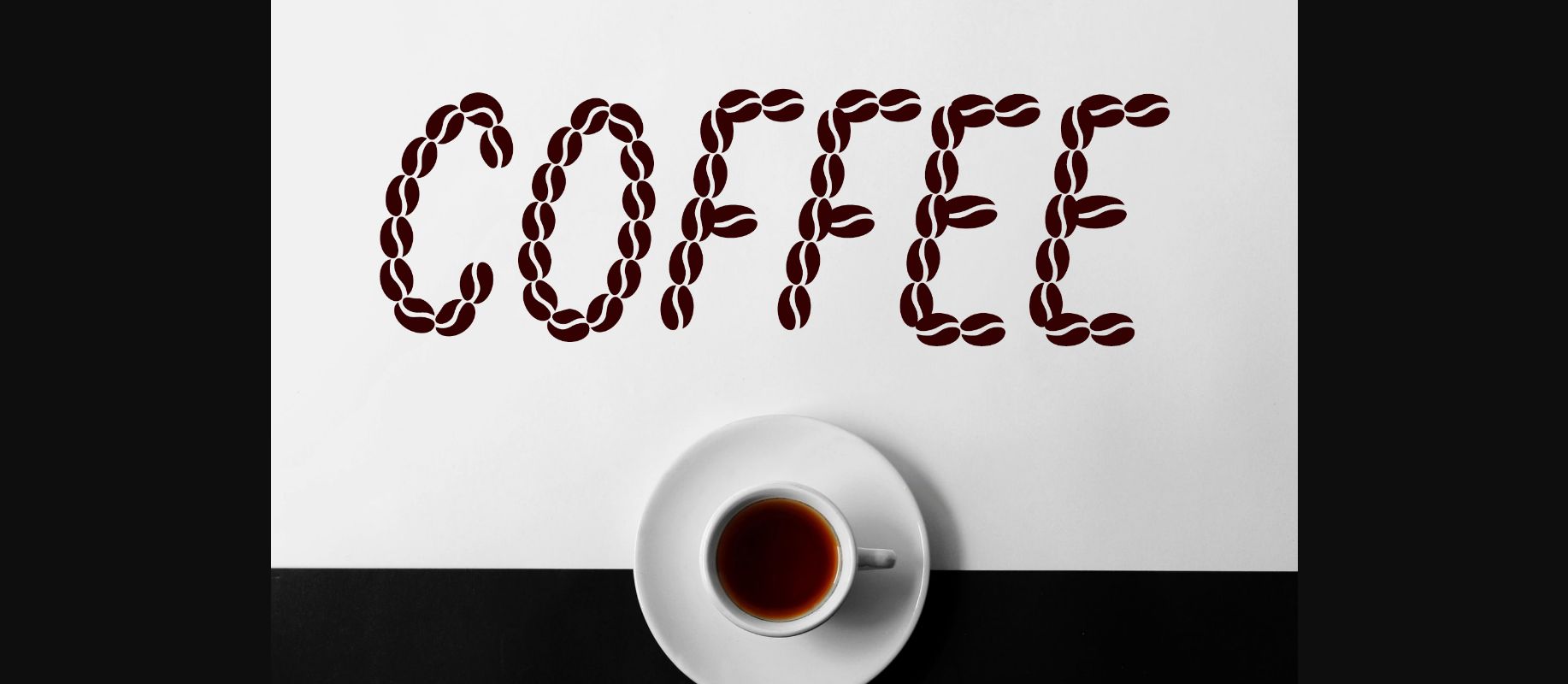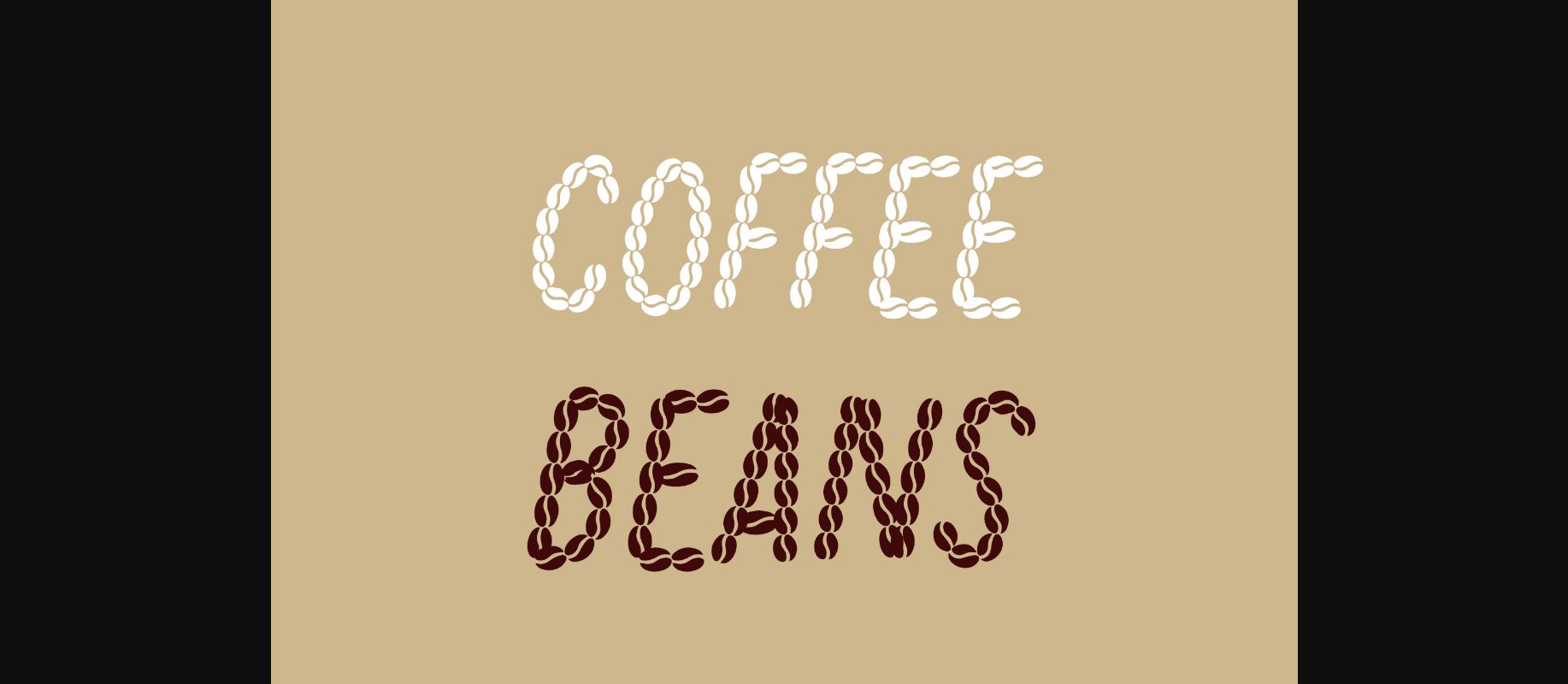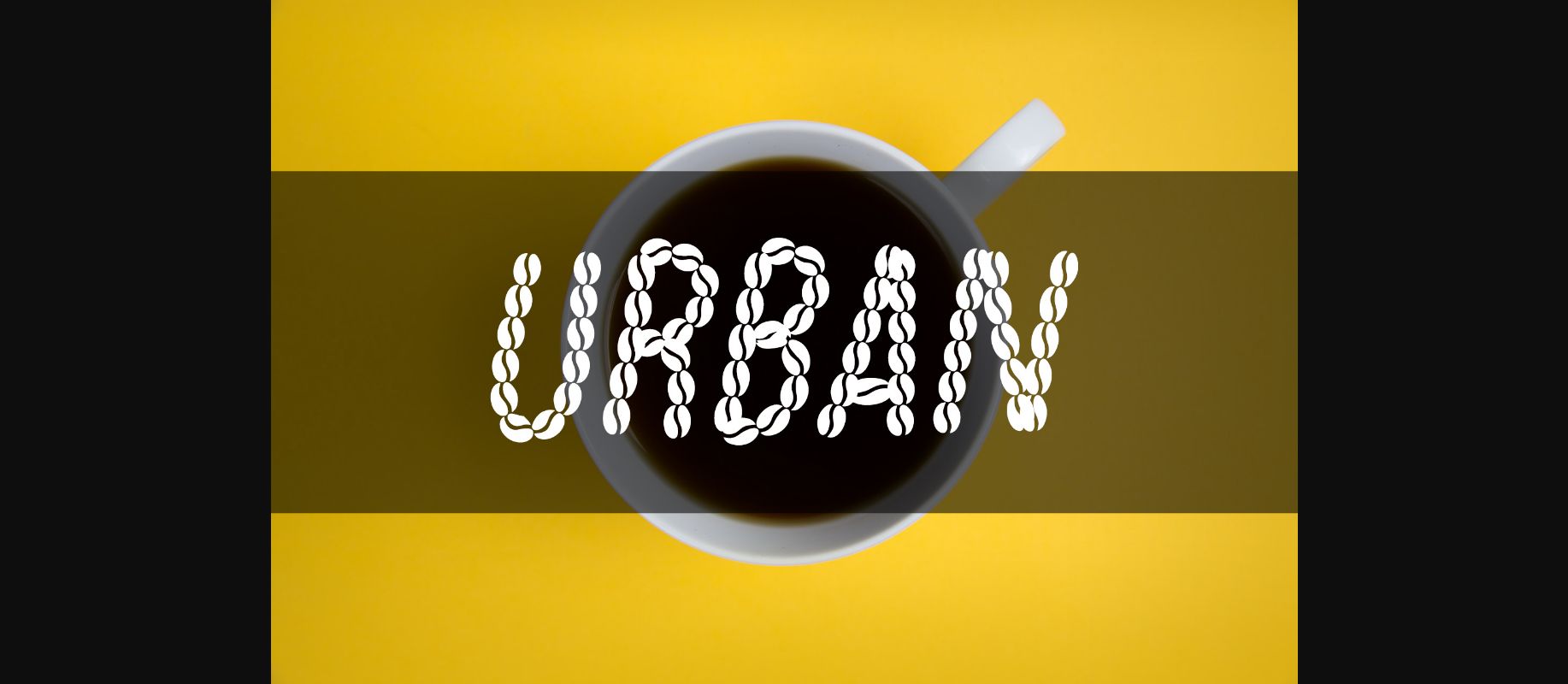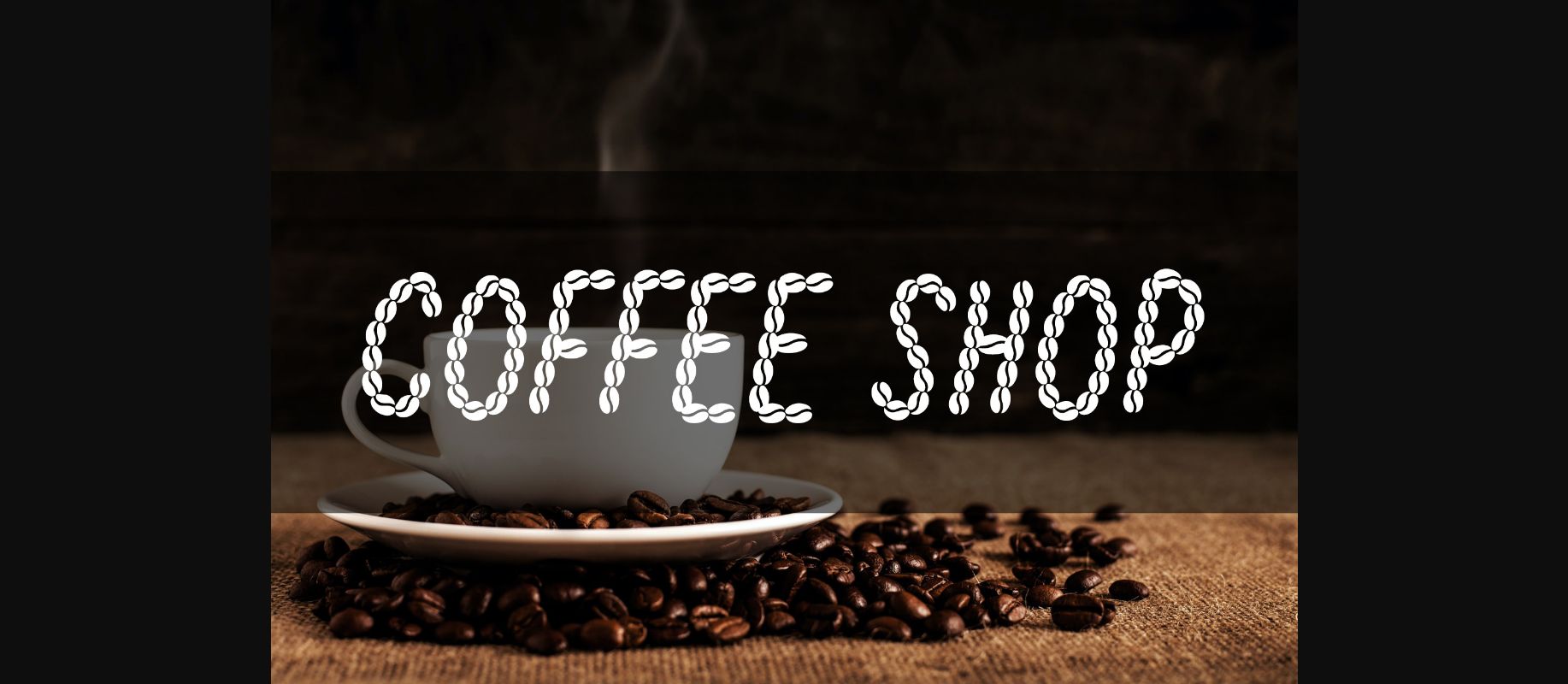
About Coffee Beans Font
Coffee Beans in a unique and interesting decorative font. It is ideal for a a variety of designs, logos, magazine covers, or any other design related to coffee.